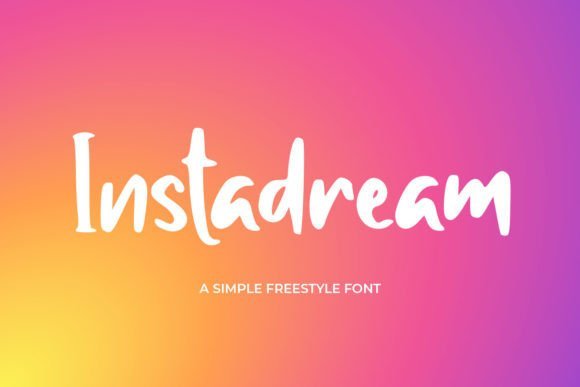
Have you ever been scrolling through social media, and suddenly a beautifully designed quote or graphic catches your eye? You can’t help but wonder how it was made. Maybe you’ve even tried to recreate it yourself, only to end up with a mess of mismatched fonts and awkward spacing. I’ve been there too!
That’s why I’m excited to introduce you to the Instadream Font, a simple freestyle font that’s perfect for adding a touch of whimsy to your craft projects. Whether you’re designing quotes, mugs, tote bags, or social media graphics, Instadream is a versatile font that can help you achieve a freestyle feel that’s both unique and eye-catching.
Instadream Font Key Features
- Unique Characteristics: Instadream Font features a distinctive dreamy and whimsical design, making it perfect for creative projects, such as children’s books, magazines, and advertisements.
- Legibility: The font is designed to be highly legible, even at smaller font sizes, ensuring that your text remains clear and easy to read.
- Scalability: The font is designed to be highly scalable, allowing it to be used effectively in a variety of contexts, from small text to large headings.
Instadream Font Review
Overall, I was really excited to dive into the Instadream Font. I love experimenting with unique and trendy fonts, and this one definitely has that ‘gram-worthy feel ✨. The dreamy, ethereal quality is perfect for creatives looking to add a touch of whimsy to their designs. The font’s versatility is another major plus – it’s just as at home on social media graphics as it is on branding materials.
One of the standout features of Instadream is its wide range of customization options ✨. From subtle texture overlays to bold, eye-catching color combinations, there’s a lot of creative freedom to be explored. I particularly appreciate the ability to adjust the font’s weight and style to suit different design needs.
- ⚠️ Limited legibility in smaller font sizes – be careful not to overuse this font in smaller contexts
- ⚠️ May not be the best choice for highly technical or informative content, where clarity is key
- ⚠️ Some users may find the font’s ‘dreamy’ quality too distracting or overused
Overall, I’d give Instadream Font 4 out of 5 stars. While it’s not perfect, its unique charm and versatility make it a great addition to any designer’s toolkit. Just be mindful of its limitations, and you’ll be well on your way to creating stunning designs with this font ✨.
Instadream Font: A Practical Application Guide
Tips for Getting the Most Out of Instadream Font
Use Instadream Font to create visually appealing headings and titles. Experiment with different font sizes and colors to create a unique look. Use the font in combination with other design elements, such as images and graphics, to create a cohesive design.
Instadream Font is ideal for use in social media graphics, blog posts, and marketing materials. It’s also great for creating invitations, posters, and other visual communications. Use the font to add a touch of elegance and sophistication to your designs.